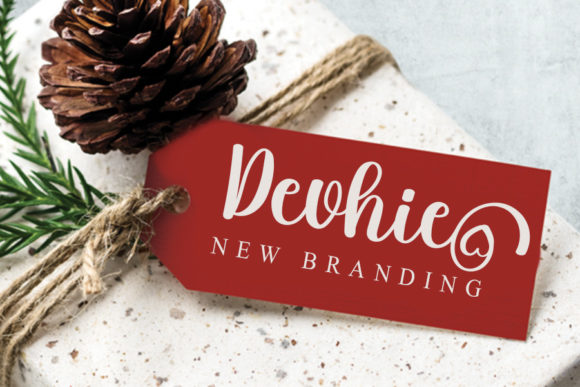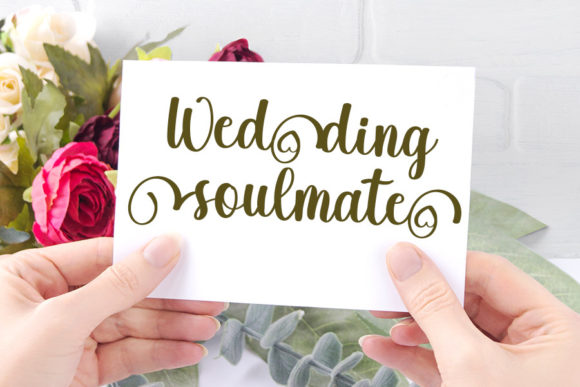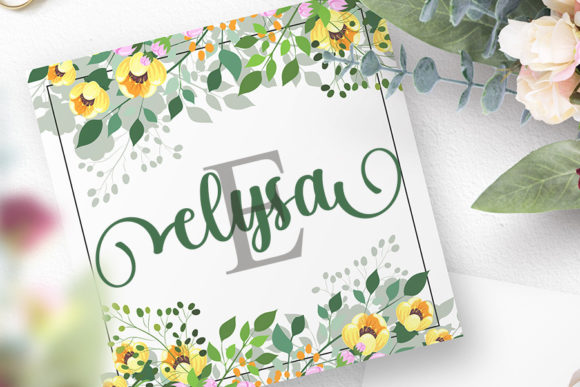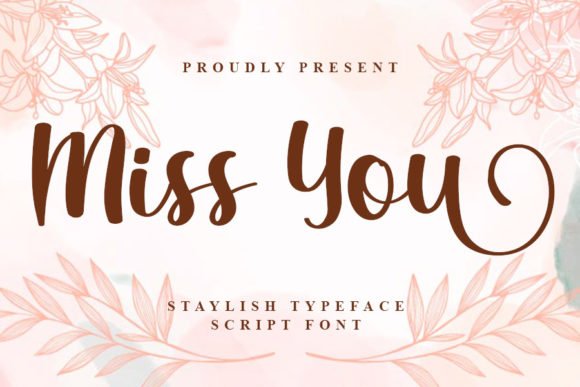
Introduction to Miss You Font
Miss You is a dazzling and highly detailed handwritten font.
It will add a luxury spark to any design project that you wish to create This font is PUA encoded which means you can access all of the amazing glyphs and ligatures with ease.